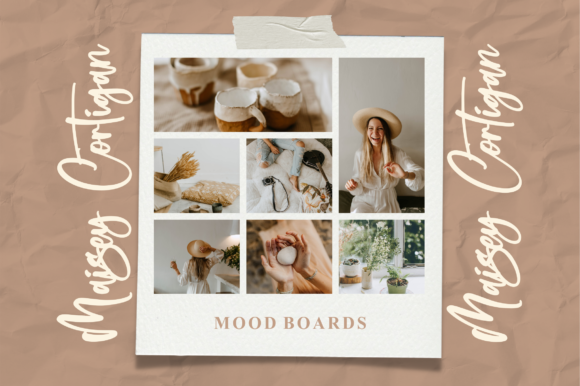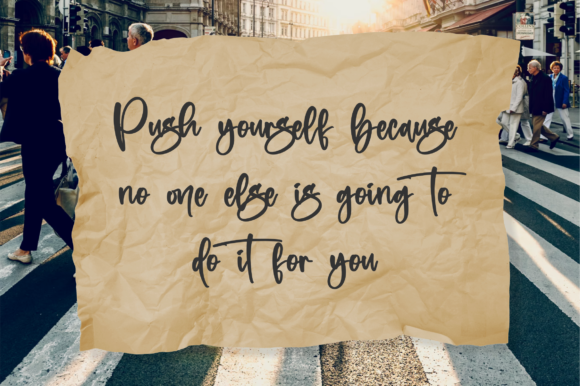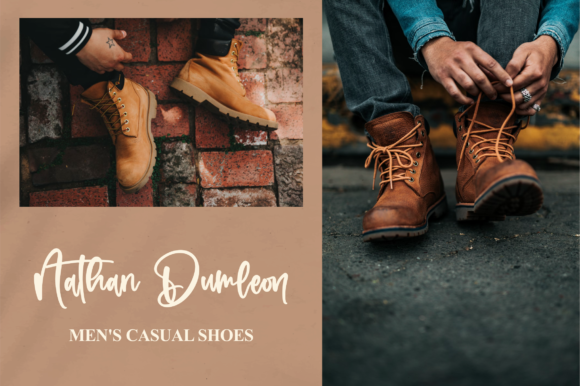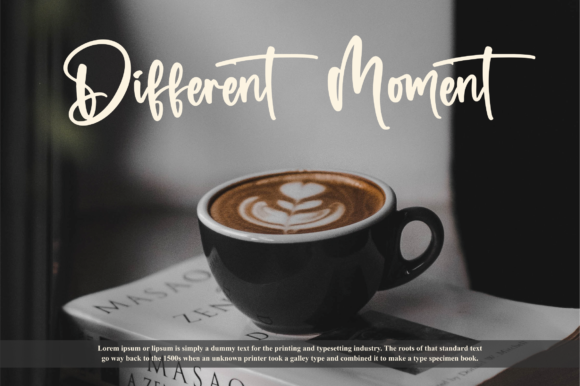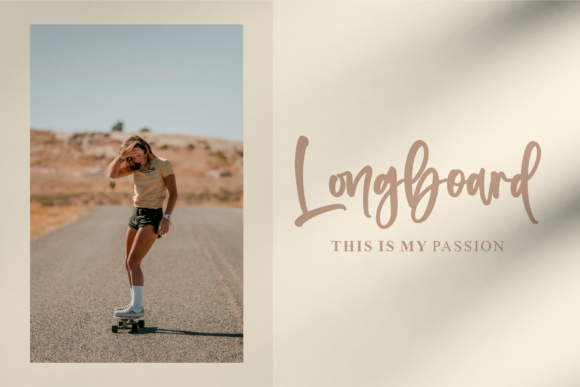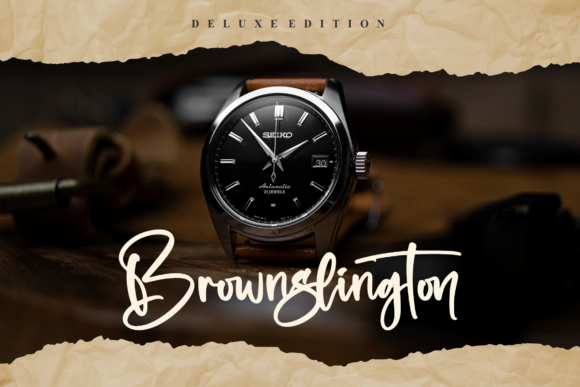
Falermost Signateria Font: Elevate Your Designs with Elegance
Are you looking for a font that can add a touch of sophistication and elegance to your designs? Look no further than Falermost Signateria, a gorgeous script font that is perfect for a wide range of projects. In this article, we’ll explore the features and benefits of Falermost Signateria, and show you how it can elevate your designs to the next level.
What is Falermost Signateria?
Falermost Signateria is a beautiful script font that is designed to add a touch of luxury and sophistication to your designs. With its flowing lines and elegant curves, this font is perfect for creating stunning logos, branding projects, homeware designs, product packaging, and more.
Features of Falermost Signateria
- Beautiful Script Style: Falermost Signateria has a gorgeous script style that is perfect for creating elegant and sophisticated designs.
- Highly Versatile: This font is suitable for a wide range of projects, including logos, branding projects, homeware designs, product packaging, mugs, quotes, posters, shopping bags, t-shirts, book covers, name cards, and more.
- Easily Readable: Despite its elegant style, Falermost Signateria is highly readable, making it perfect for use in both print and digital designs.
- Unique and Distinctive: With its unique and distinctive style, Falermost Signateria is sure to make your designs stand out from the crowd.
Benefits of Using Falermost Signateria
So why should you choose Falermost Signateria for your designs? Here are just a few benefits of using this gorgeous script font:
- Adds Elegance and Sophistication: Falermost Signateria adds a touch of elegance and sophistication to your designs, making them perfect for high-end brands and luxury products.
- Increases Brand Recognition: With its unique and distinctive style, Falermost Signateria can help increase brand recognition and make your designs more memorable.
- Perfect for Creative Projects: Whether you’re working on a creative project or designing marketing materials, Falermost Signateria is the perfect choice for adding a touch of elegance and sophistication.
Examples of Projects that Use Falermost Signateria
Falermost Signateria is a highly versatile font that can be used for a wide range of projects. Here are a few examples of projects that use this gorgeous script font:
- Logos and Branding Projects: Falermost Signateria is perfect for creating stunning logos and branding projects that require a touch of elegance and sophistication.
- Homeware Designs: This font is also great for homeware designs, such as kitchenware, bedding, and towels.
- Product Packaging: Falermost Signateria can add a touch of luxury and sophistication to product packaging, making it perfect for high-end brands.
- Mugs and Apparel: This font is also great for designing mugs, t-shirts, and other apparel.
Tips for Using Falermost Signateria
Here are a few tips for using Falermost Signateria in your designs:
- Use it Sparingly: While Falermost Signateria is a beautiful font, it’s best to use it sparingly to avoid overwhelming your designs.
- Pair it with Other Fonts: This font pairs well with other fonts, such as sans-serif fonts, to create a stunning contrast.
- Experiment with Colors: Falermost Signateria looks great in a range of colors, so don’t be afraid to experiment and find the perfect color for your design.
Falermost Signateria is a gorgeous script font that is perfect for adding a touch of elegance and sophistication to your designs. With its highly versatile style and range of uses, this font is a must-have for designers and crafters. Whether you’re working on a logo, branding project, or creative project, Falermost Signateria is the perfect choice.